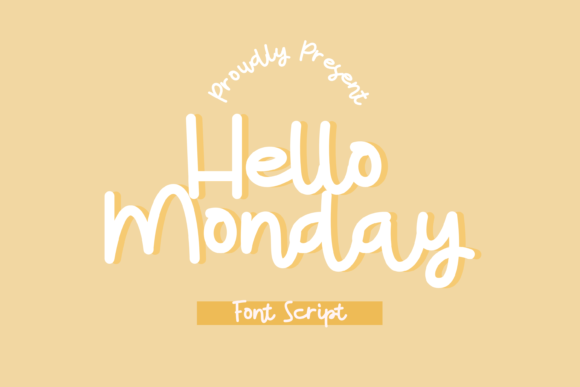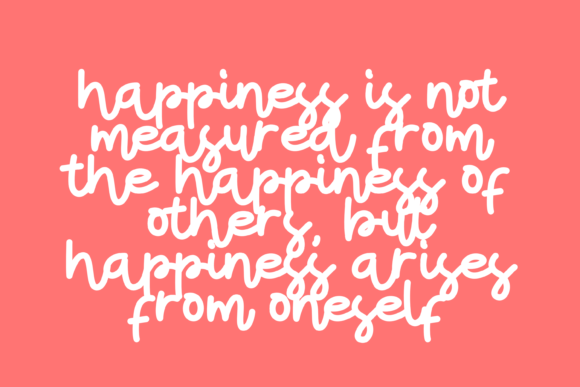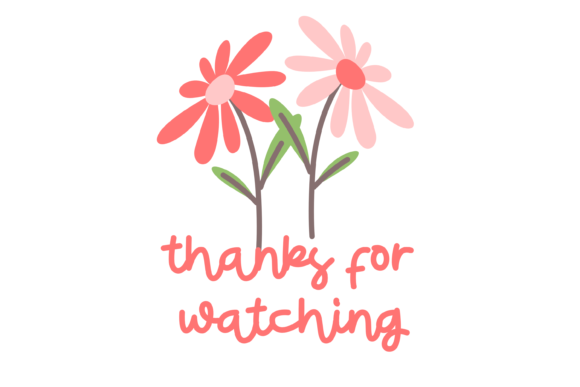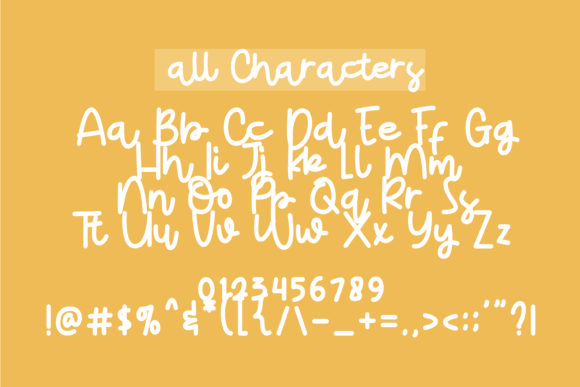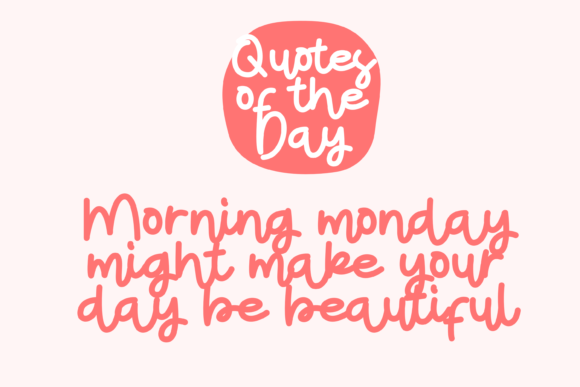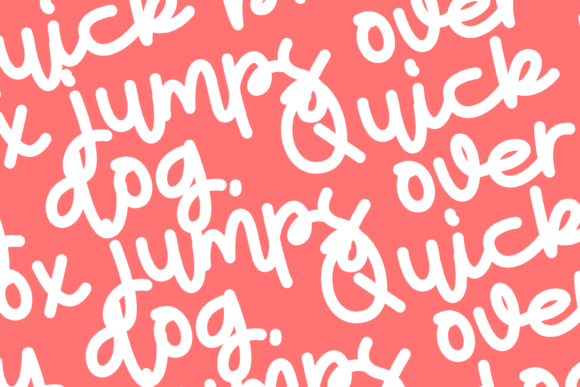
Hello Monday Font
Hello Monday is a cute, quirky and friendly handwritten font. It is playful and neat and is the perfect choice for any children activity or school project.